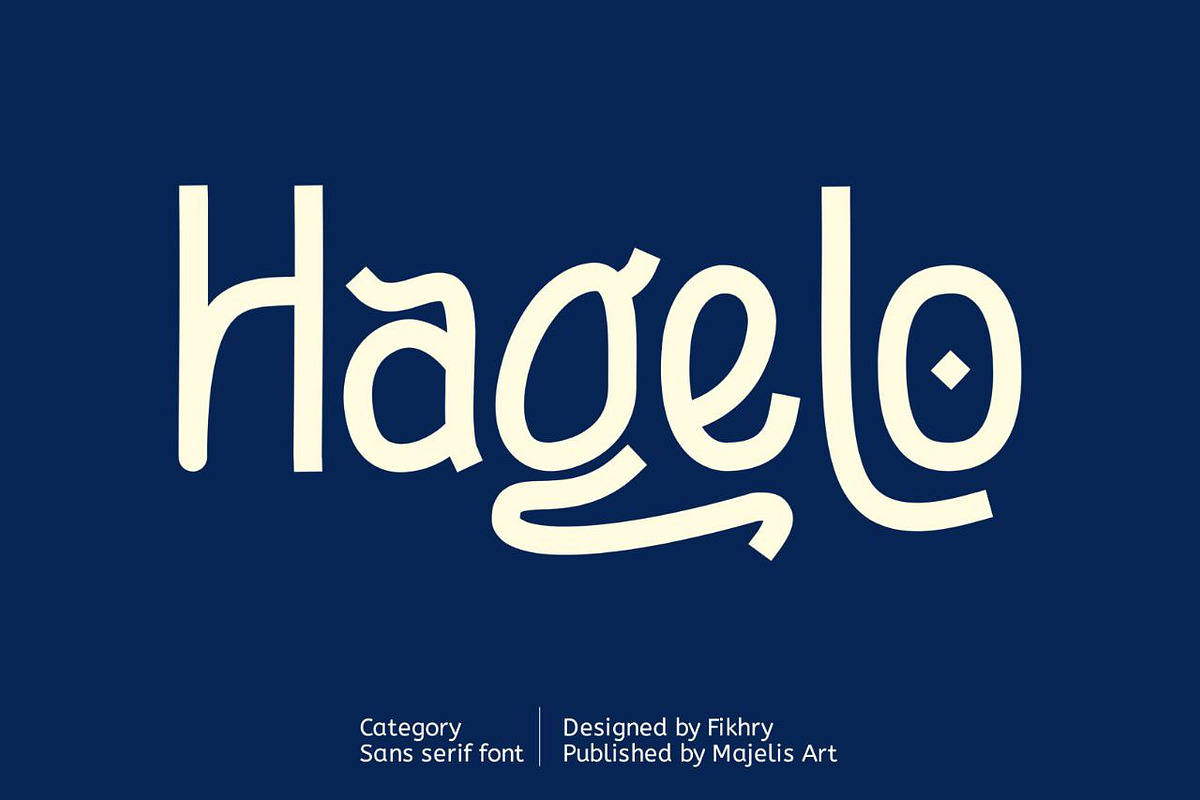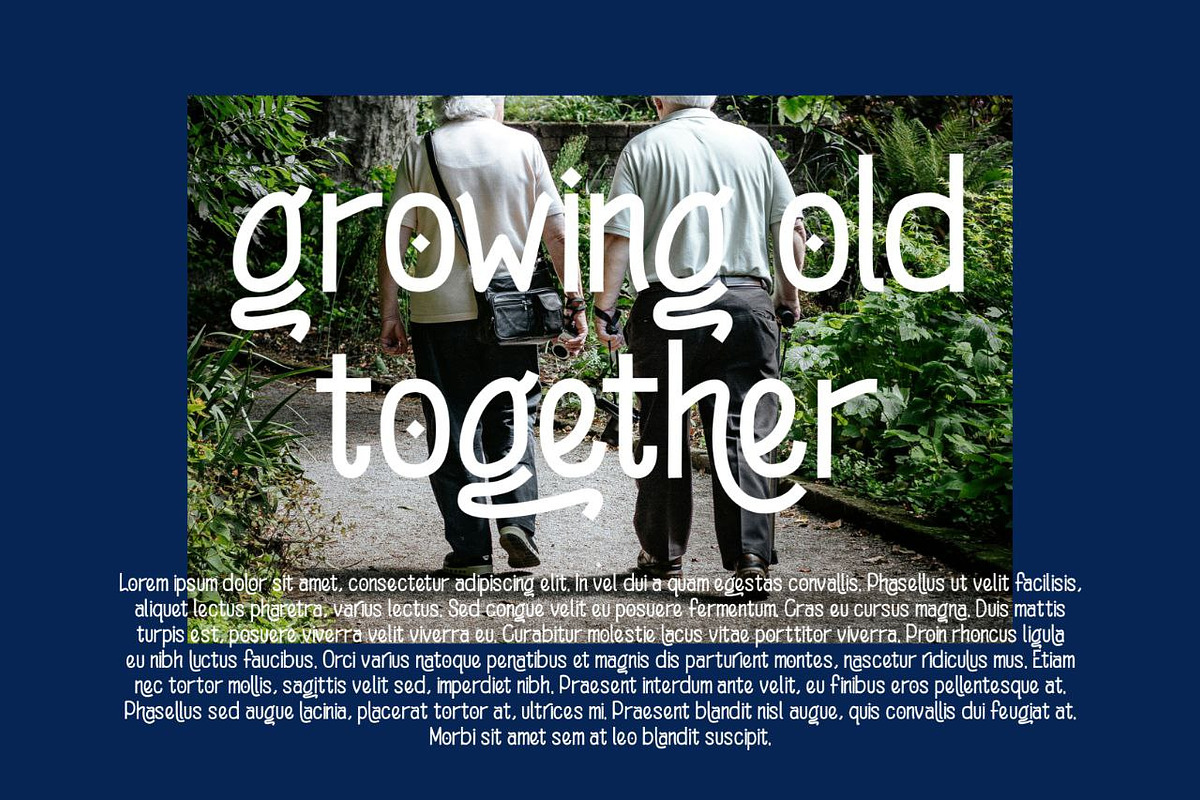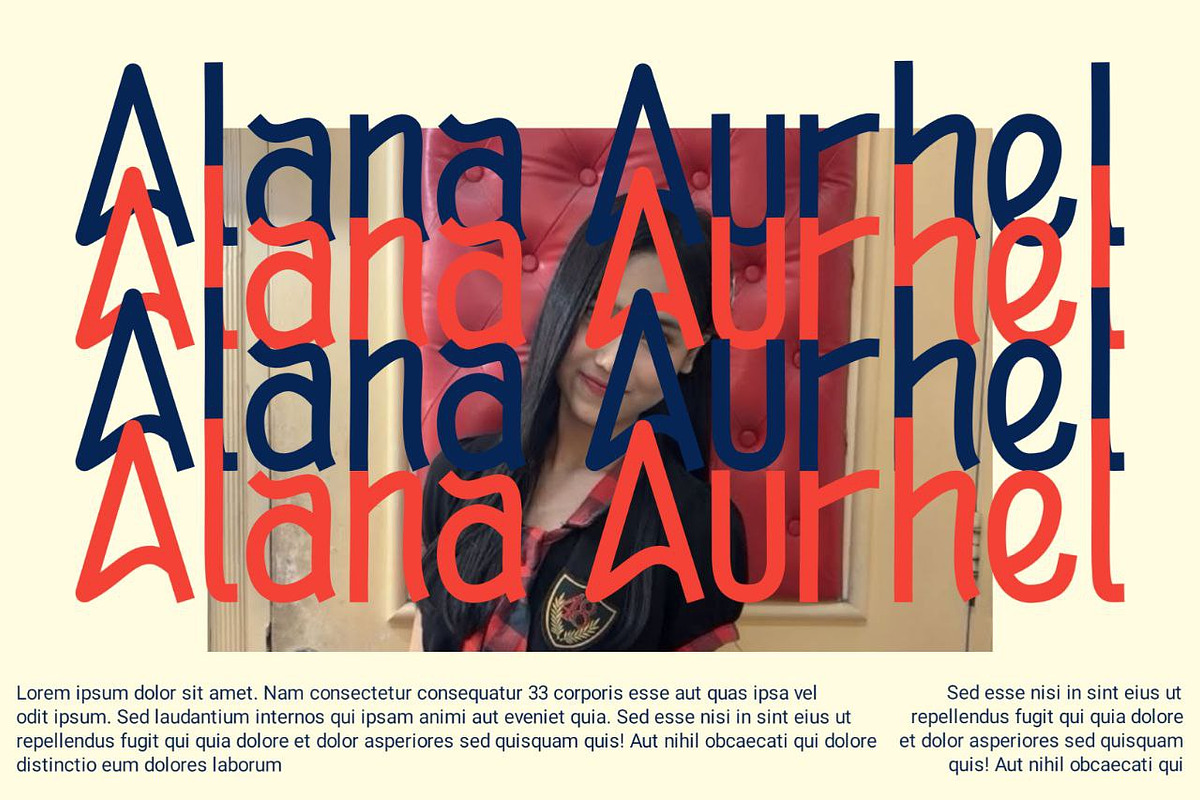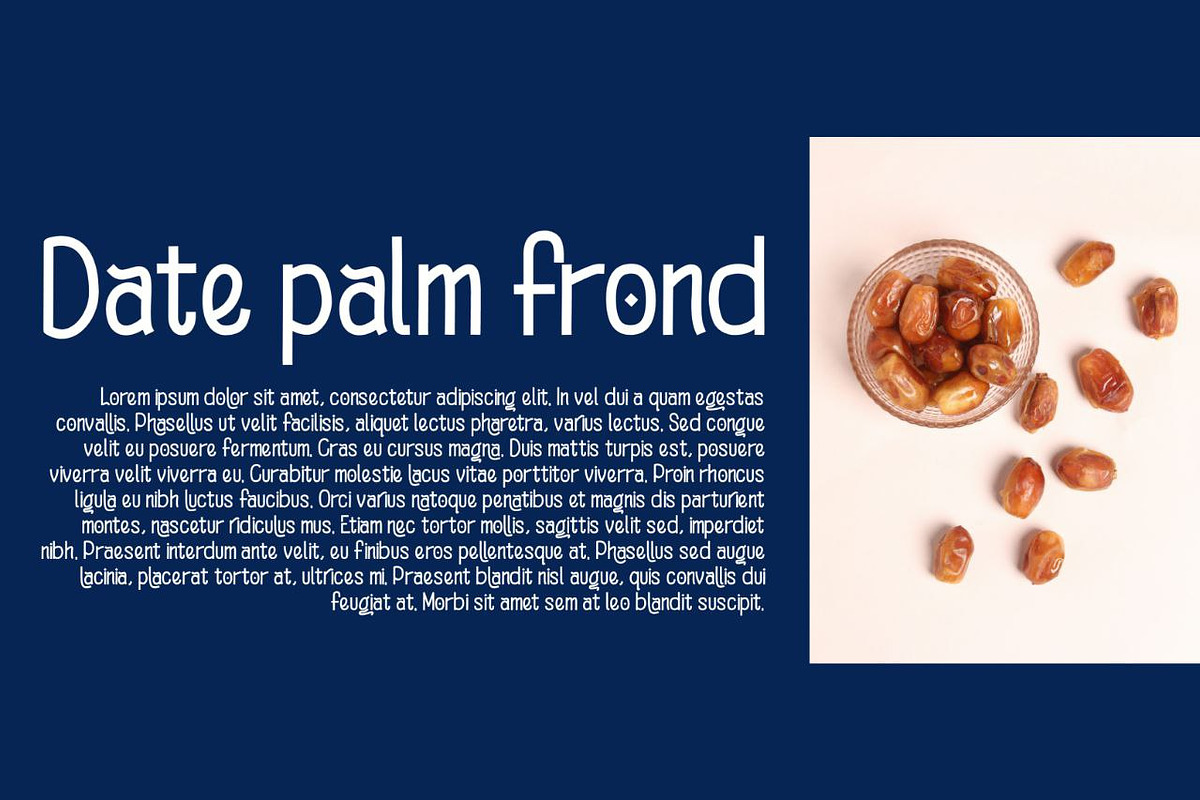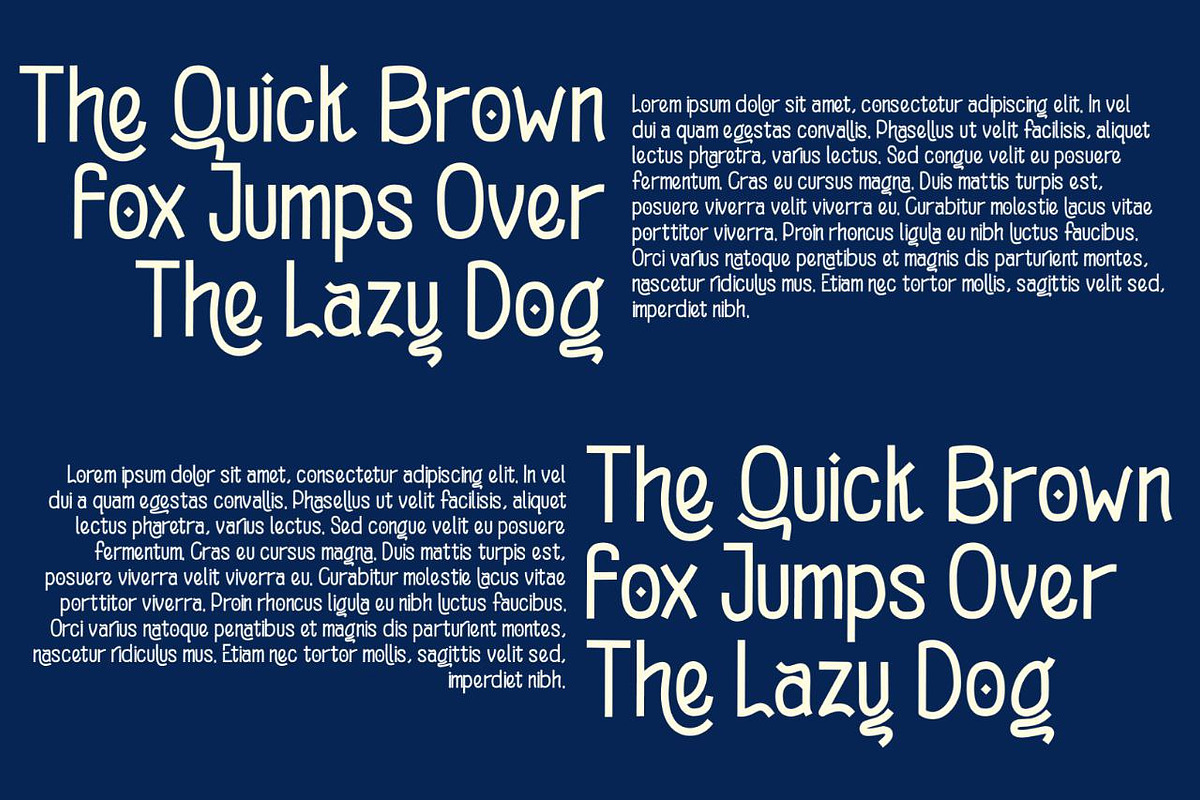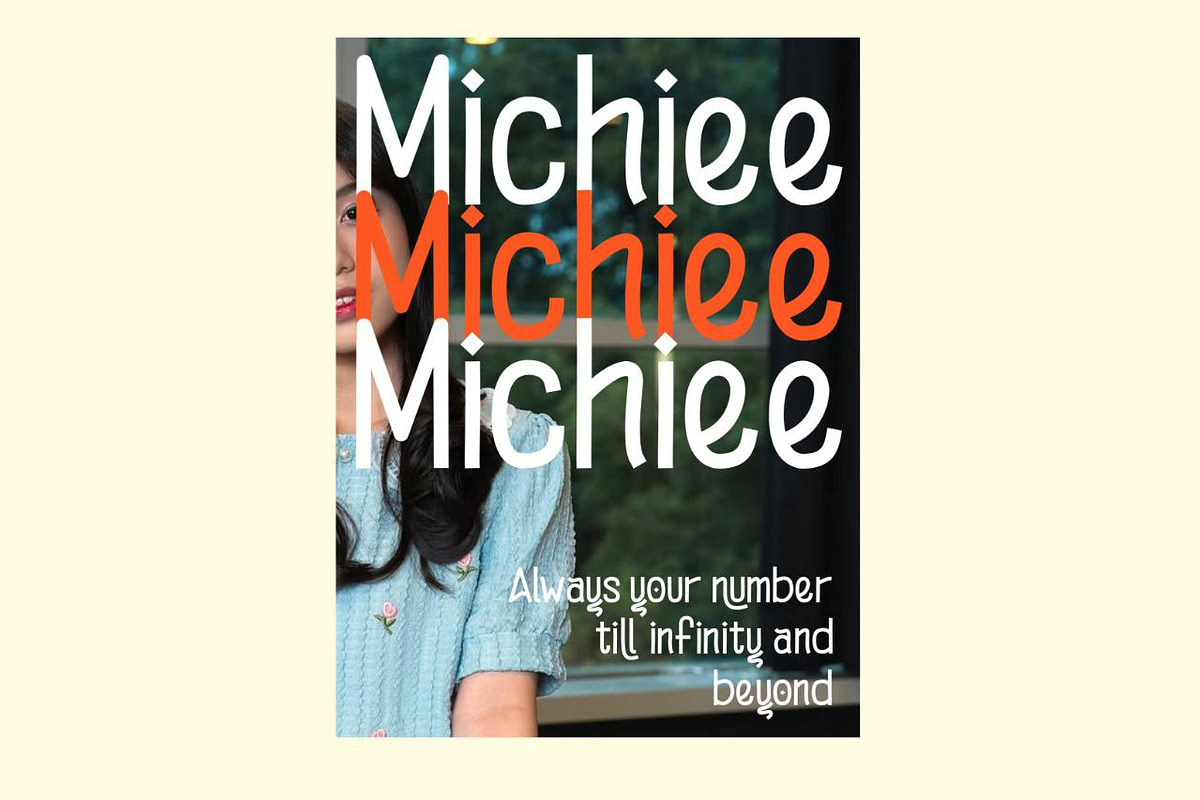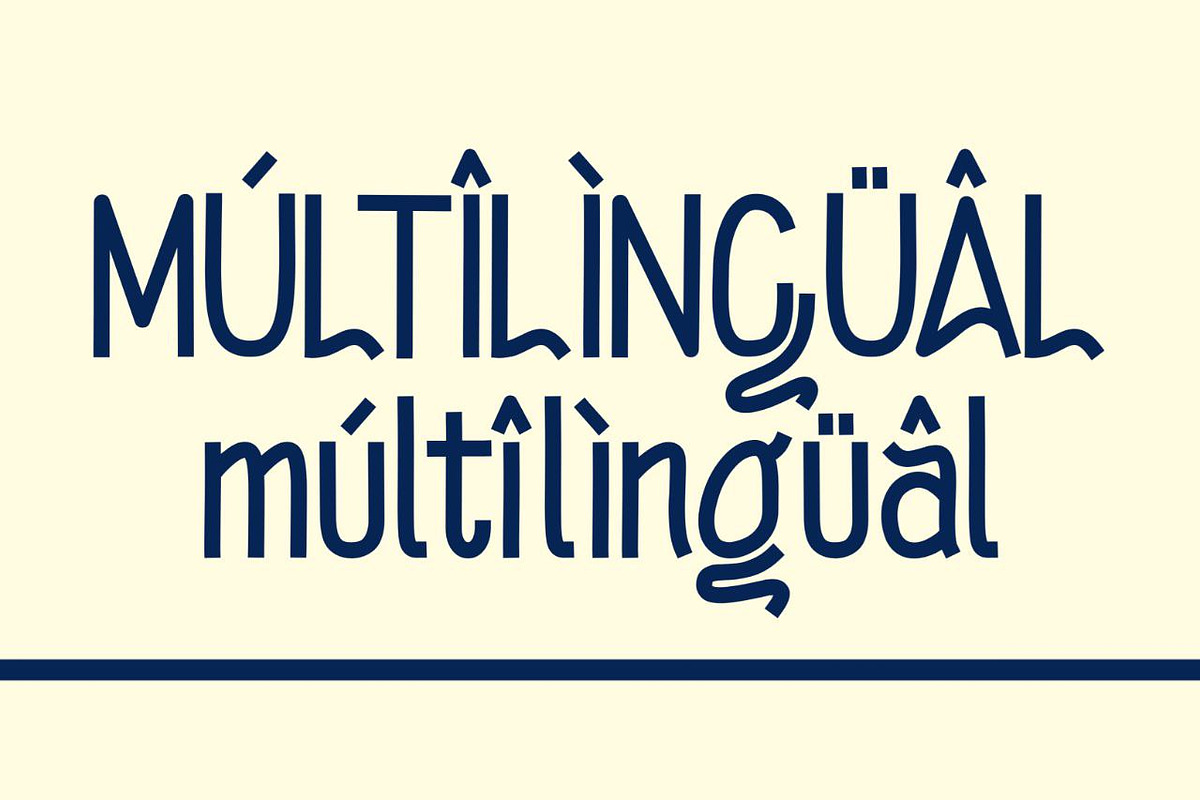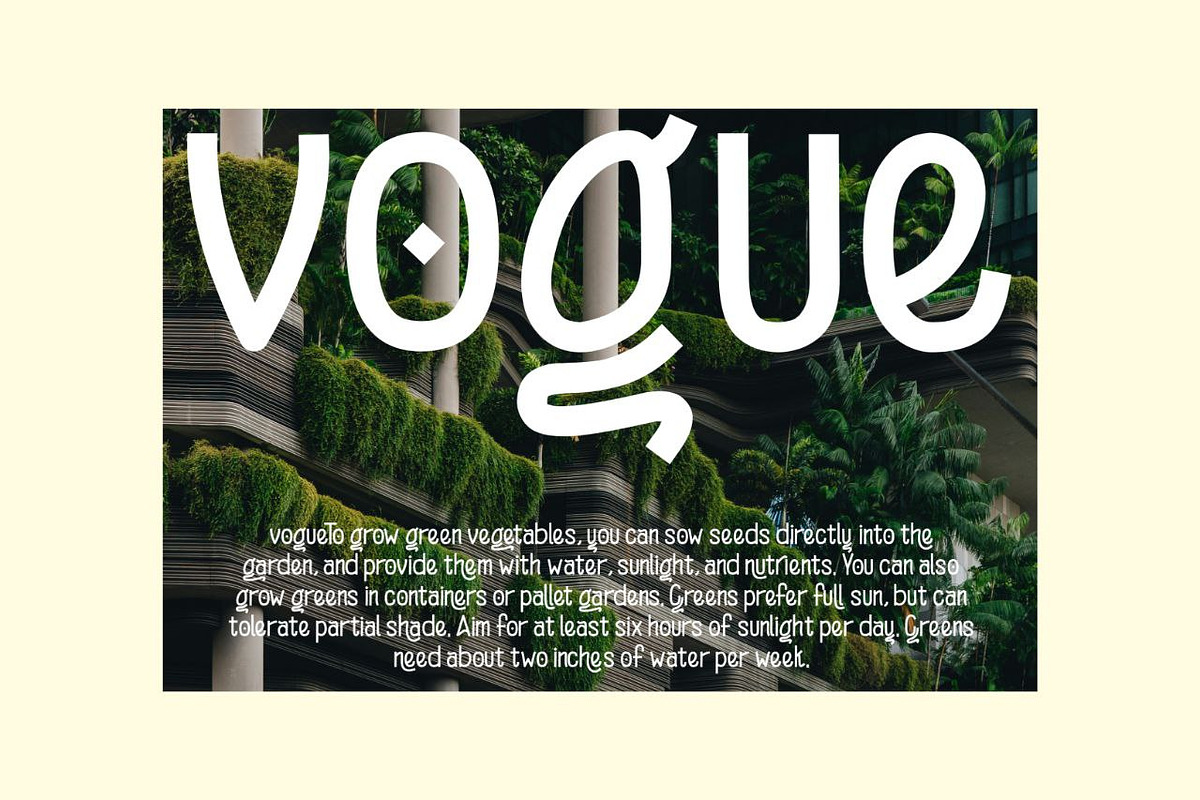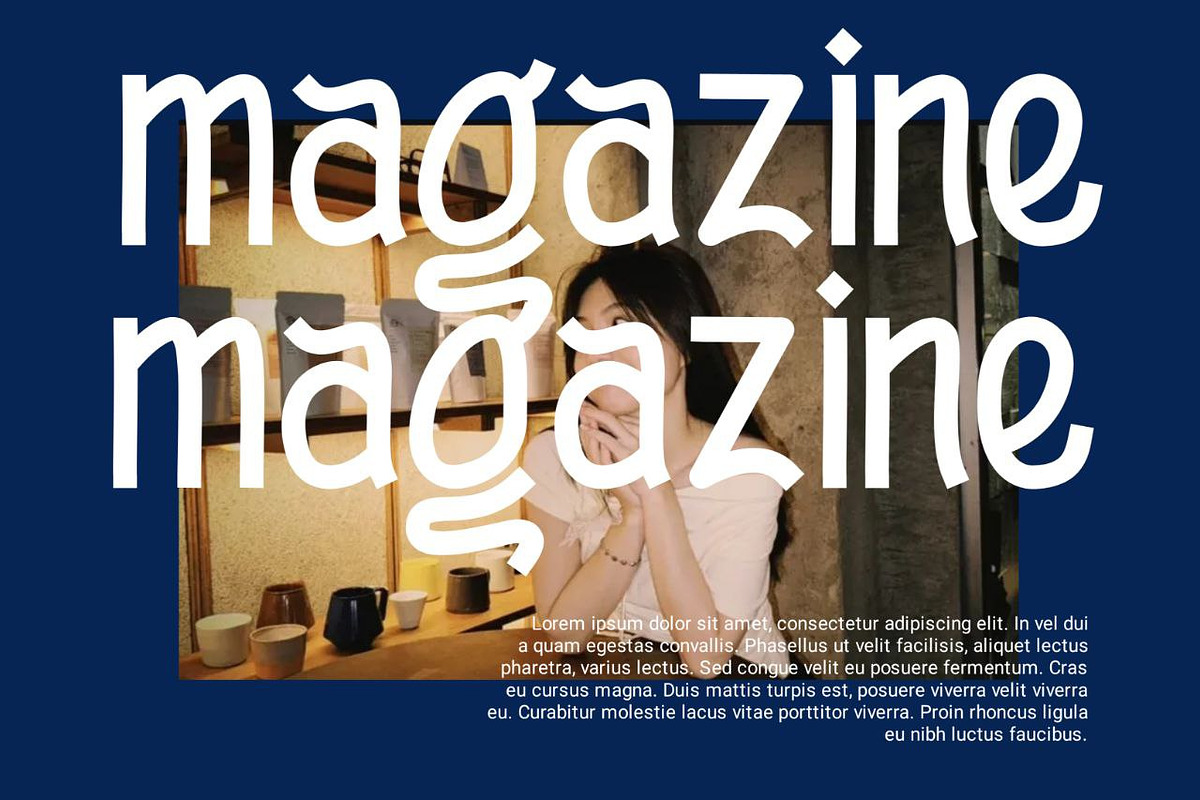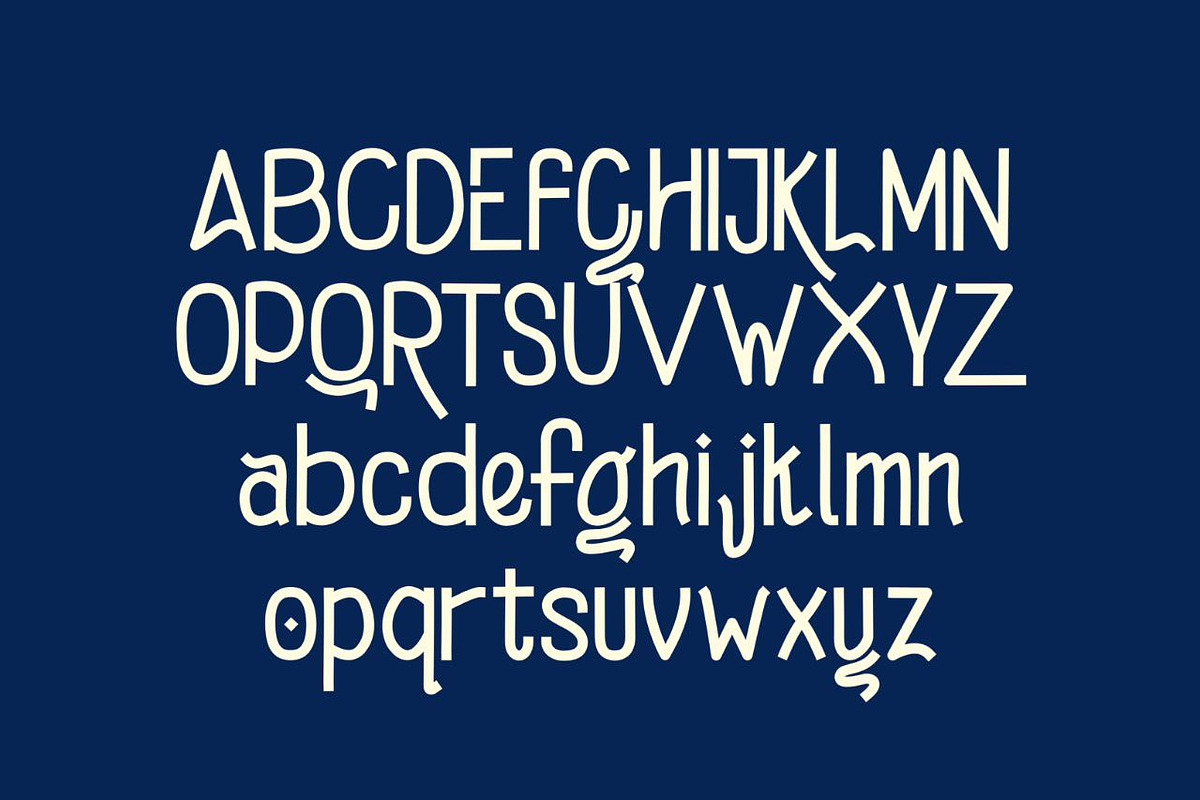
Hagelo
Hagelo font is a font made from two straight and curved lines. The uniqueness of this font lies in the letters G and Q for uppercase, and g and y for lowercase. Hagelo is perfect for printing magazines, books, novels, subtitles, and various brands and products. We also prepare Multilingual so that it can be used in certain languages that you want to use.